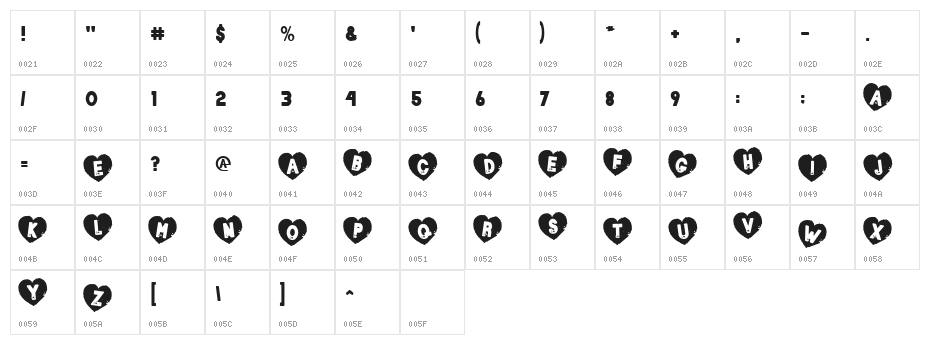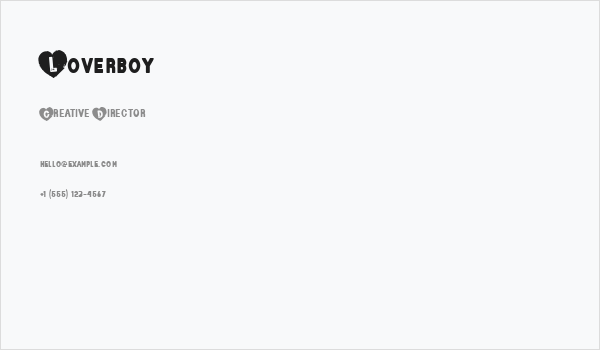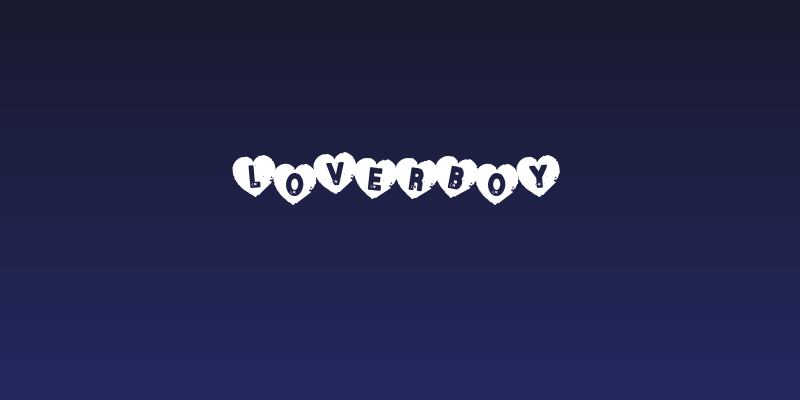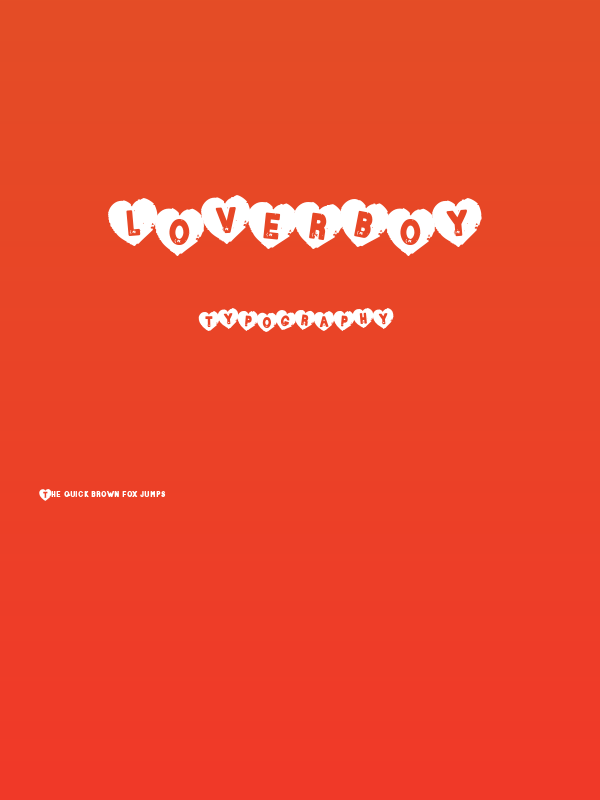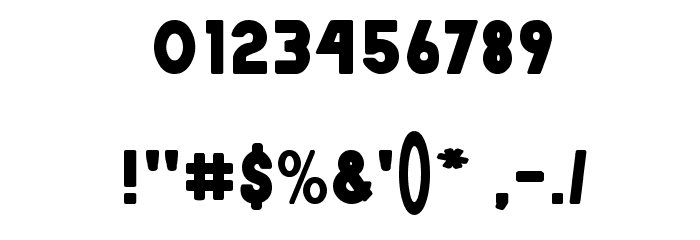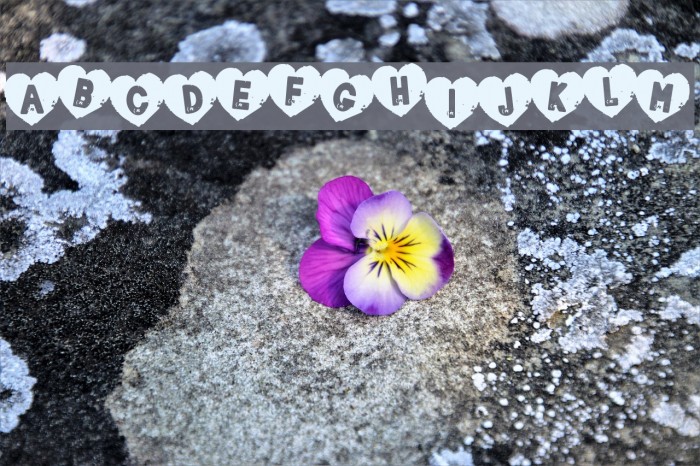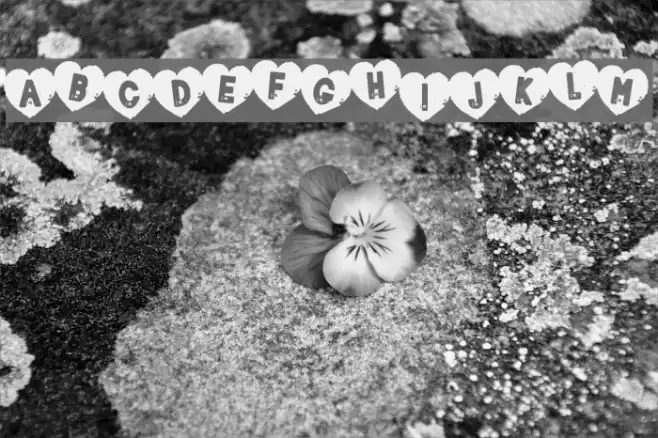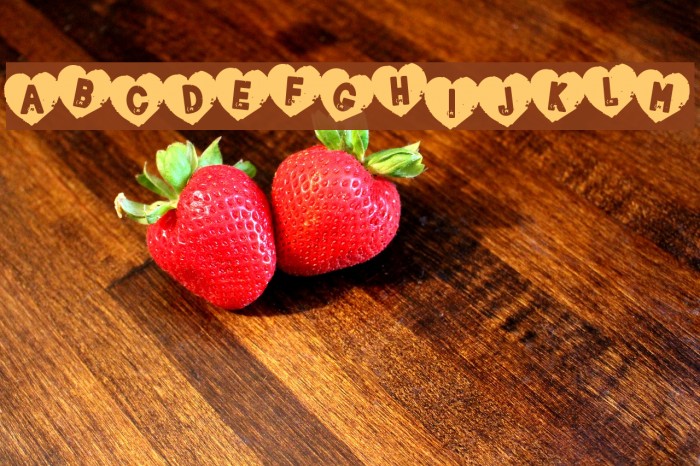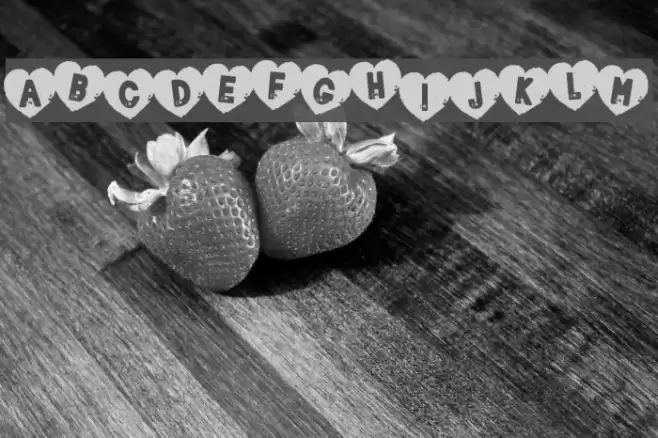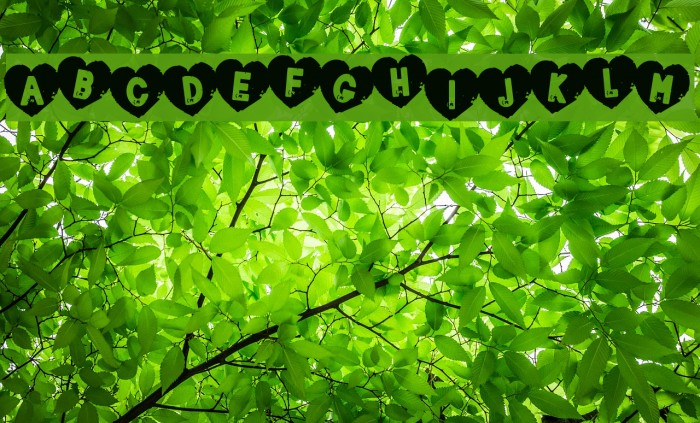
Loverboy Font
| Style général | Playful, Romantic |
| Cas d'utilisation | Headlines, Logos, Decorative text |
| Projets proposés | Valentine's Day cards, wedding invitations, playful posters, children's book covers, or any project needing a whimsical touch. |